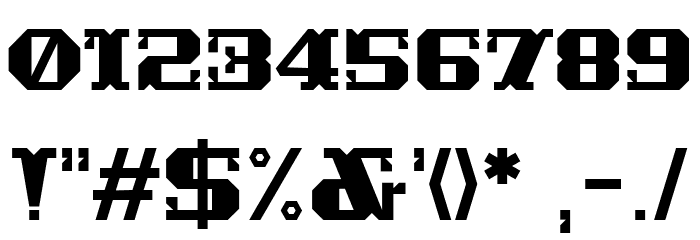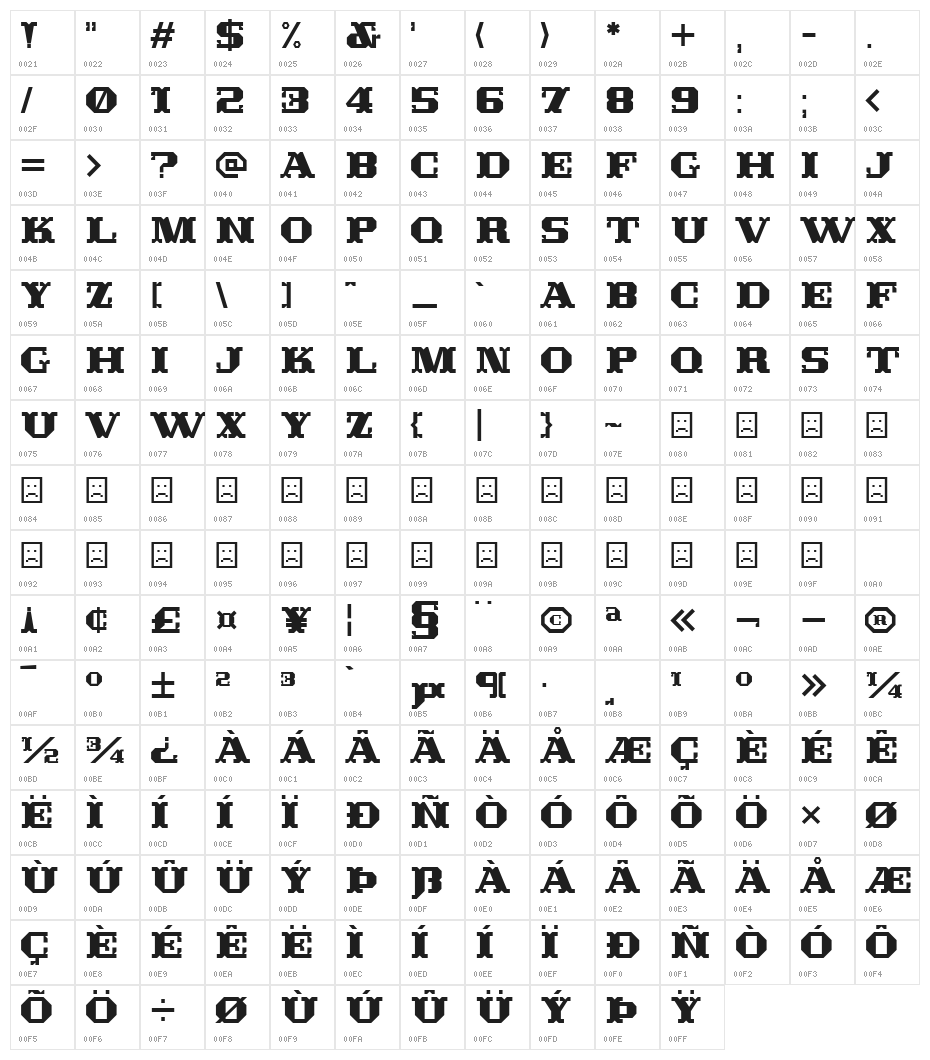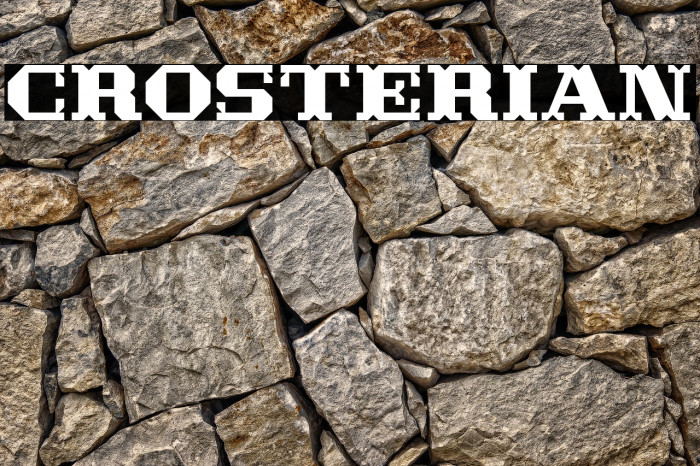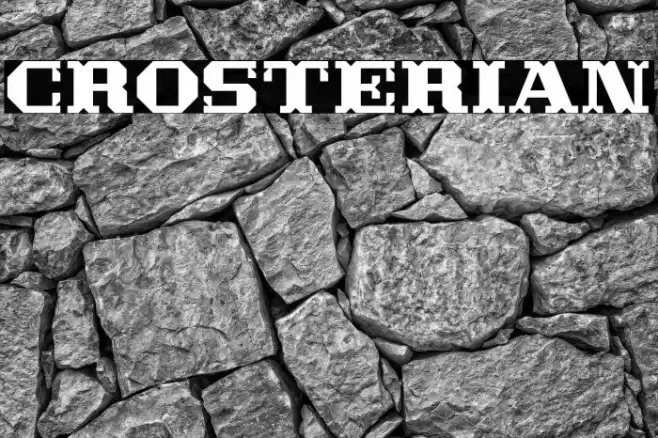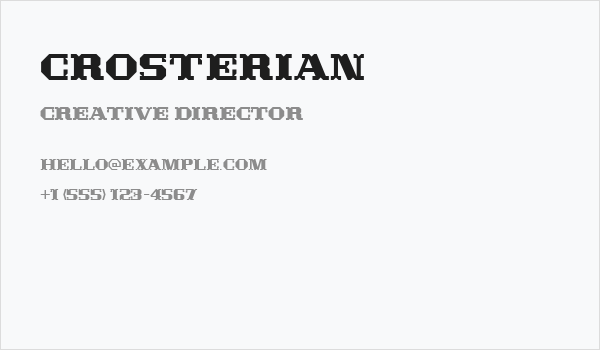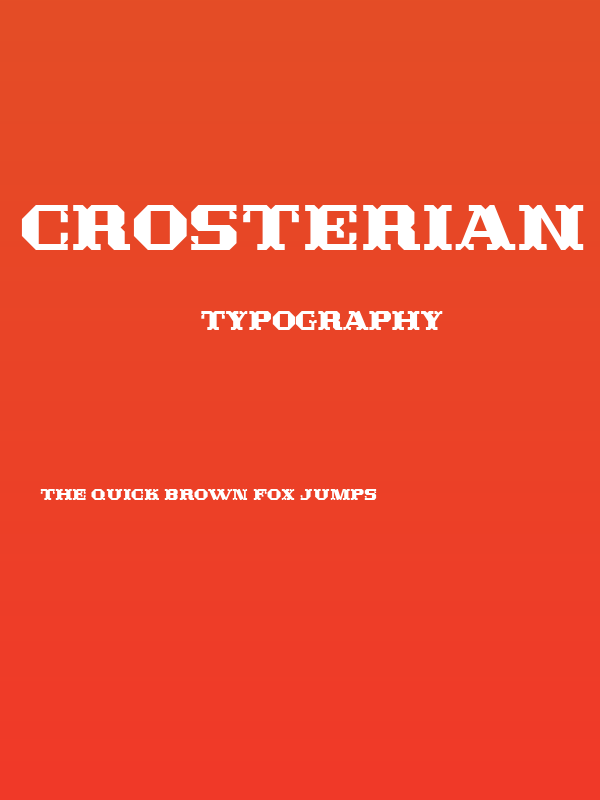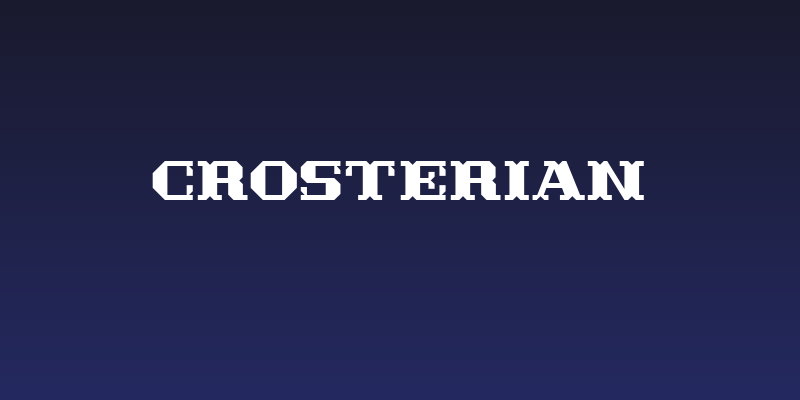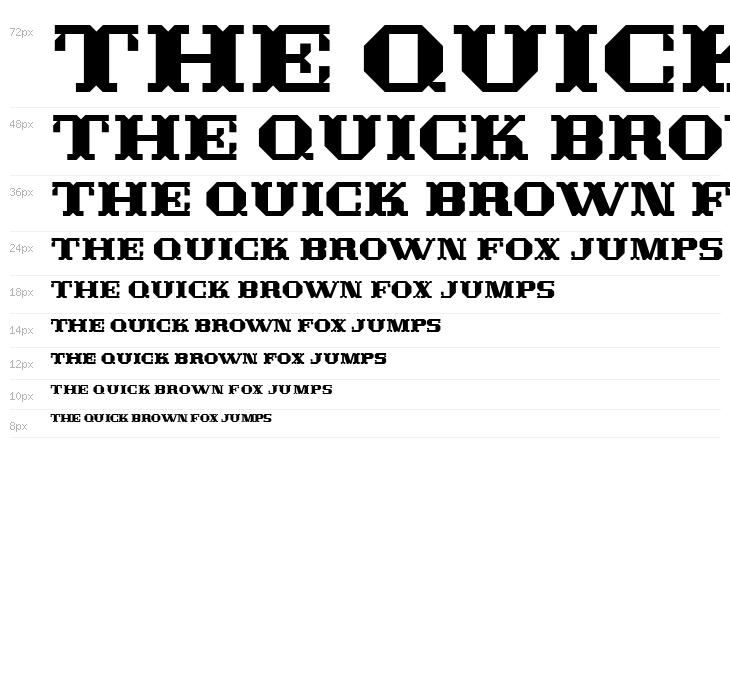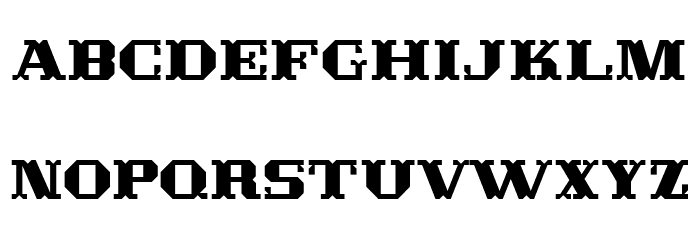
Crosterian Font
Crosterian Description
This font features a bold and robust design with a distinctly geometric and angular style. The characters are constructed with sharp edges and a strong presence, making it ideal for attention-grabbing headlines. The uppercase and lowercase letters maintain a consistent weight, contributing to a cohesive and impactful appearance. The numbers and special characters follow the same design principles, ensuring uniformity across all glyphs. The font's unique style is reminiscent of industrial or futuristic themes, suitable for projects that require a bold statement.
Crosterian is a geometric slab serif typeface inspired by Tuscan typefaces
| Overall Style | Modern, Industrial |
| Proposed Projects | Ideal for posters, logos, branding, and any project that requires a bold, industrial look. |
Crosterian is a geometric slab serif typeface inspired by Tuscan typefaces